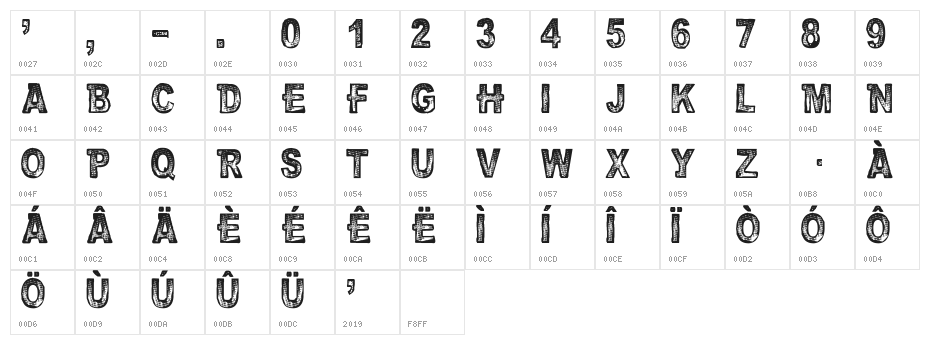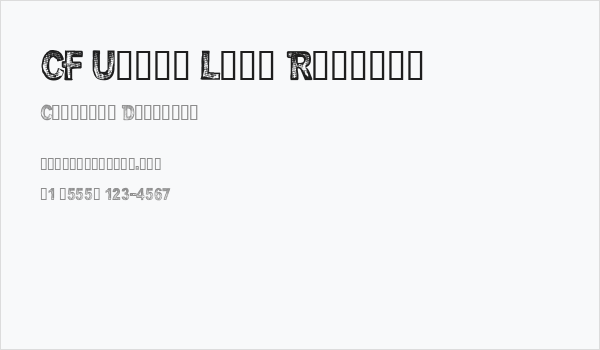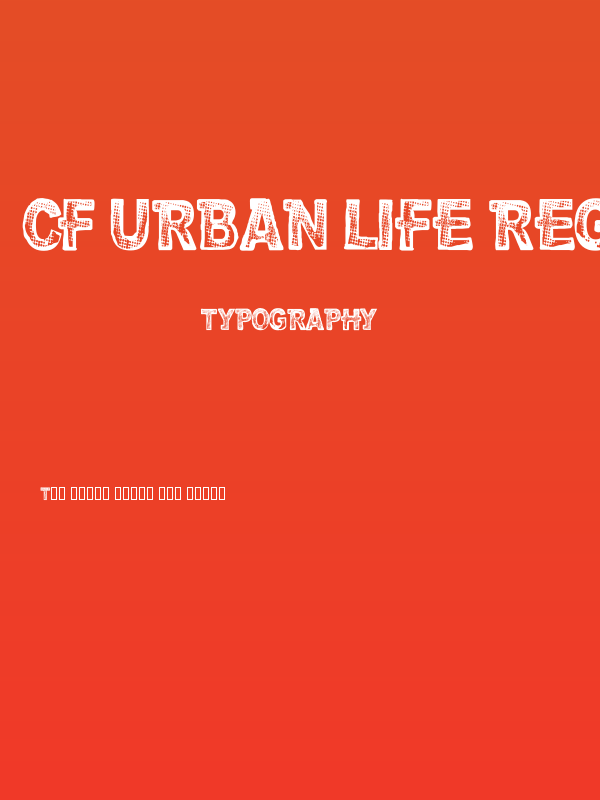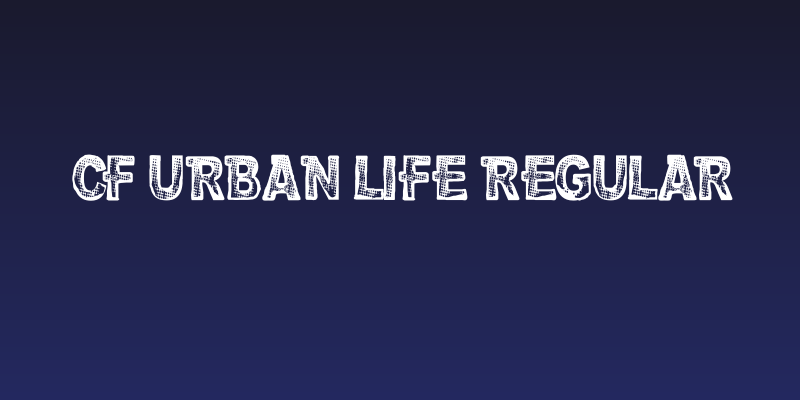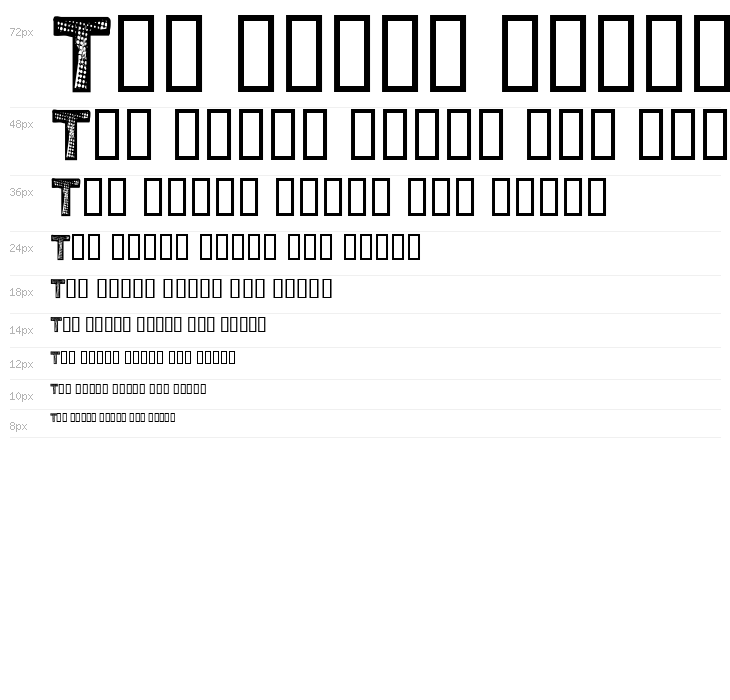
CF Urban Life Regular Font
CF Urban Life Regular Description
This font features a bold and dynamic style with a textured, distressed appearance that gives it an urban and gritty feel. The uppercase letters are prominent and impactful, making them ideal for attention-grabbing headlines. The numerals and special characters maintain the same textured design, ensuring consistency across all elements. The font's unique style is reminiscent of street art or graffiti, with a playful yet edgy vibe. Its boldness and character make it suitable for projects that require a strong visual impact, such as posters, flyers, or branding materials that aim to convey a sense of modernity and urban culture.
| Overall Style | Urban, Modern, Decorative |
| Proposed Projects | Ideal for posters, flyers, branding, and any project needing a bold, urban aesthetic. |